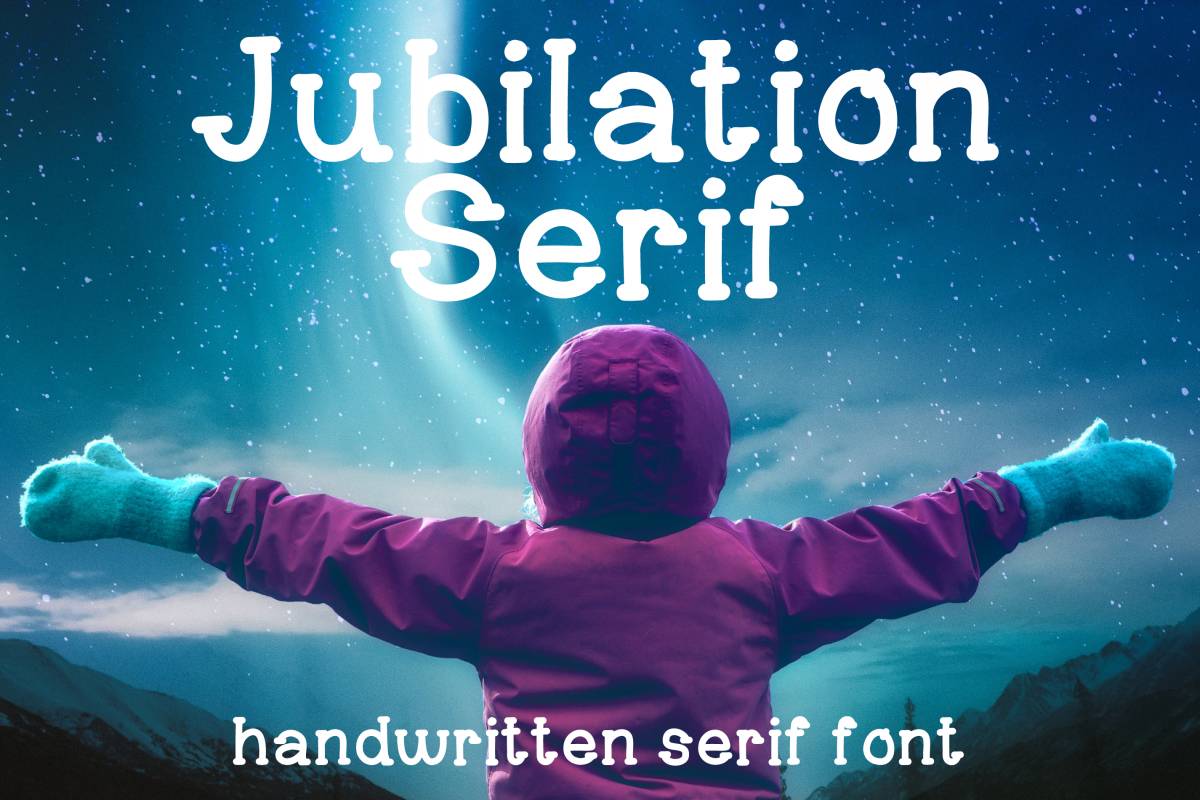
Jubilation Serif Handwritten Font
Jubilation Serif is a handwritten serif font. It is perfect for logos, headlines, and advertising. This serif font features A-Z, a-z, 0-9, common symbols, and basic language support (please see listing photos for details)!